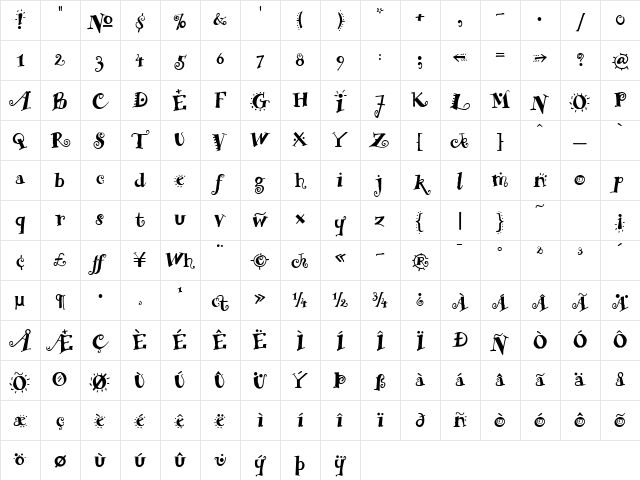
Remedy is a composed and adaptable typeface that performs quietly and consistently across a wide range of design contexts.
Who designed the Remedy Medium font?
This font was published by Emigre Graphics; Designed by Frank Heine. Check the technical specs section for copyright and designer details.